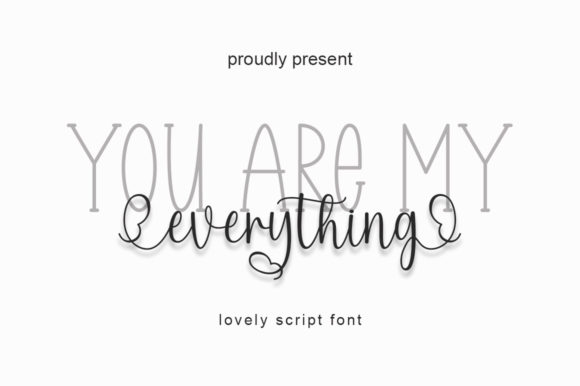
Unveiling a Font Duo That Will Captivate Your Designs: "You Are My Everything"
Embrace the artistry of "You Are My Everything", an extraordinary font duo that weaves together the elegance of a sans serif with the enchanting flow of a script. This carefully crafted collection is a love letter to creativity, designed to elevate your projects with a touch of luxury and sophistication.
Immerse yourself in the beauty of "You Are My Everything" and discover a world of endless possibilities. This versatile font duo is meticulously designed to adapt seamlessly to your creative vision. Whether you're crafting heartfelt quotes, designing eye-catching social media posts, creating stunning invitations, or adding a touch of elegance to your website, "You Are My Everything" is your perfect companion.
With its sans serif's clean lines and modern appeal, paired with the script's graceful curves and romantic charm, "You Are My Everything" possesses an allure that will leave a lasting impression. Its characters dance along the baseline, infusing your designs with a sense of dynamism and energy.
But "You Are My Everything" is more than just a pretty face. It's a font duo that's incredibly versatile and easy to use. PUA-encoded, it grants you effortless access to a treasure trove of glyphs and swashes, empowering you to unleash your creativity and explore new design horizons.
"You Are My Everything" is not just a font; it's an experience. It's an invitation to let your imagination soar, to create designs that resonate with emotion and captivate your audience. Whether you're a seasoned designer or just starting your creative journey, this font duo will ignite your passion and help you create designs that truly stand out.
Don't let this opportunity pass you by. Embrace the beauty of "You Are My Everything" today and unlock a world of creative possibilities. Let your designs blossom with elegance and charm, and let your imagination run wild. The world of design awaits your artistry, and "You Are My Everything" is your key to unlocking its full potential.